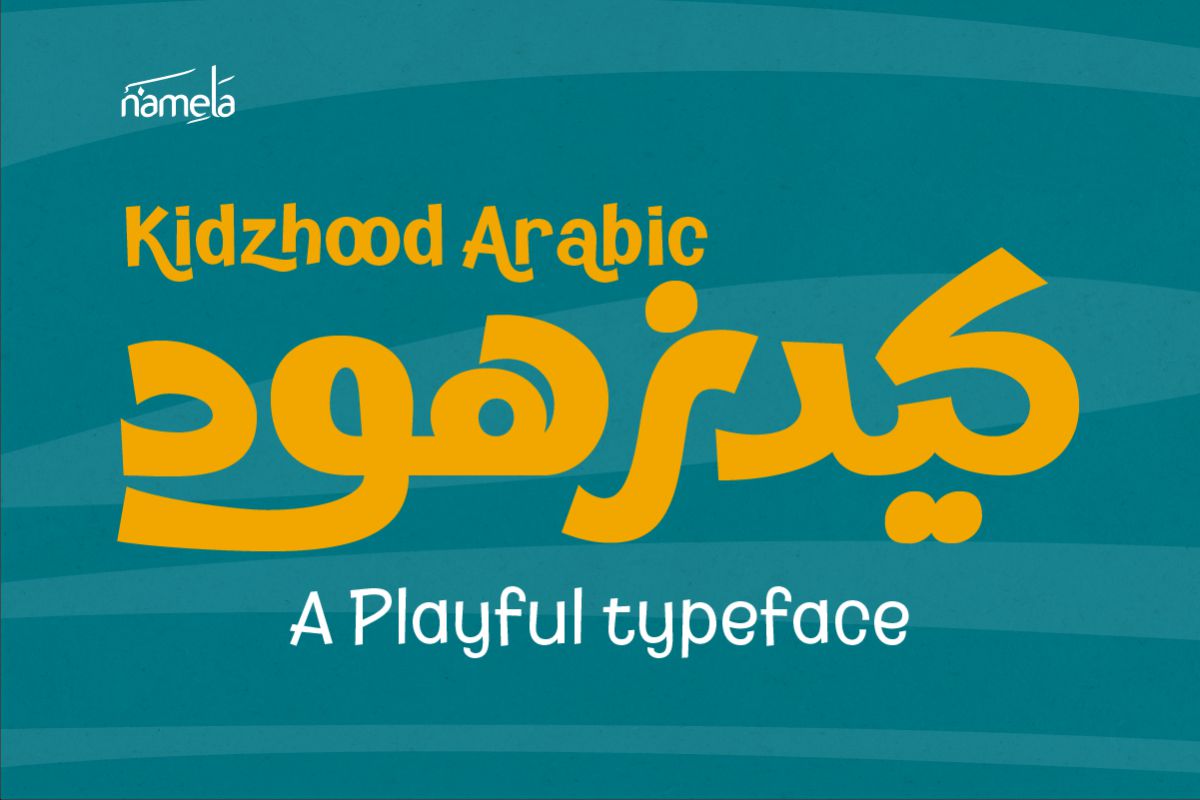
Kidzhood Bold
Kidzhood Arabic Font - A Cute and Playful Typeface for Kids' Branding & ePub Kidzhood Arabic Cute and Playful font brings the same boundless, childlike energy of the original Kidzhood family directly into Arabic script, creating a lively handwritten font built for kids’ branding, ePub publishing, and any Arabic-language design that needs to feel warm, imaginative, and genuinely fun. For designers working across Arabic, Urdu language, Persian language (Farsi), and Kurdish language markets, Kidz